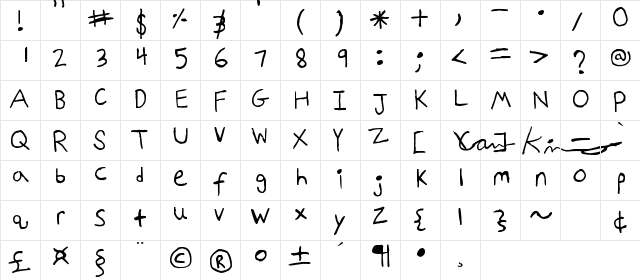
Kindergarten Cam Regular
Design Context for Kindergarten Cam Typeface
Kindergarten Cam is a composed and adaptable typeface that performs quietly and consistently across a wide range of design contexts.